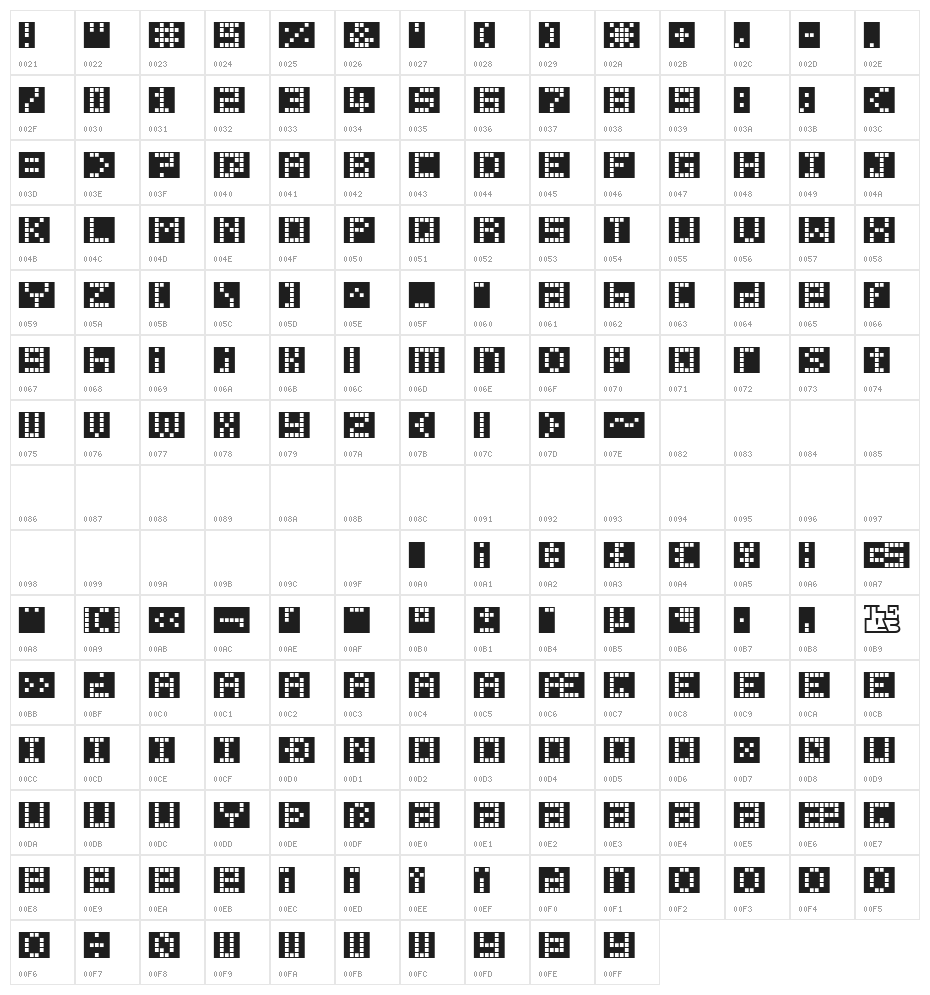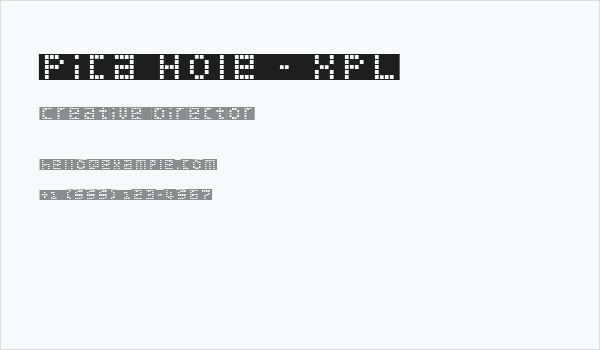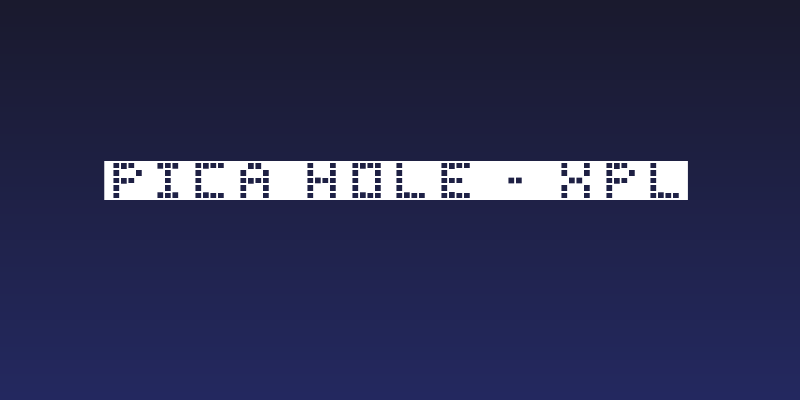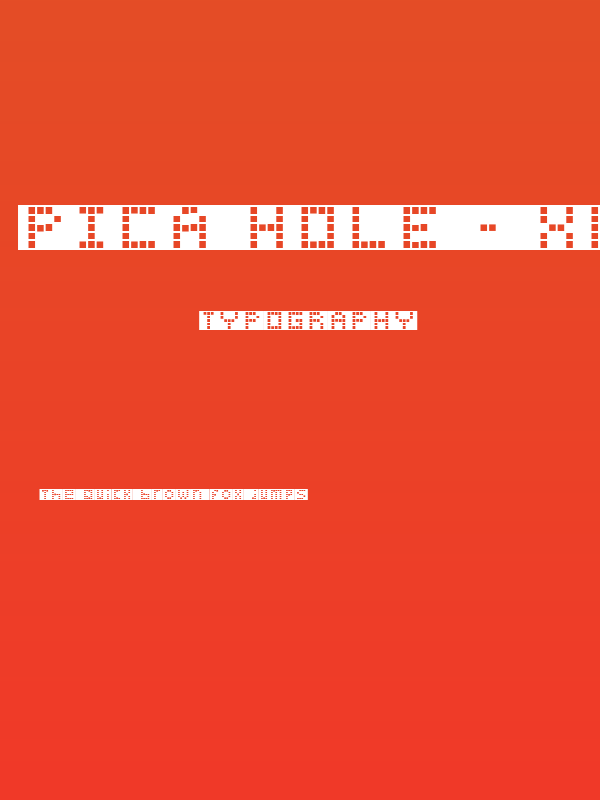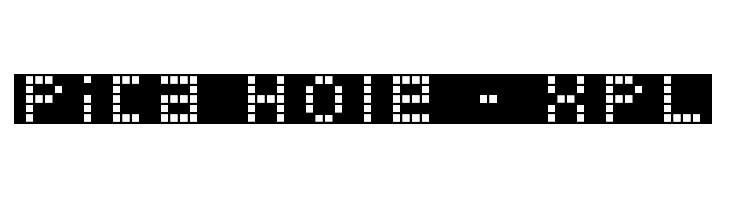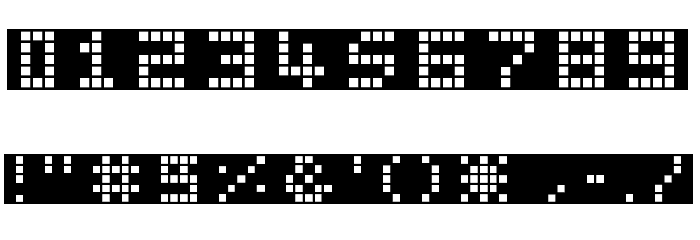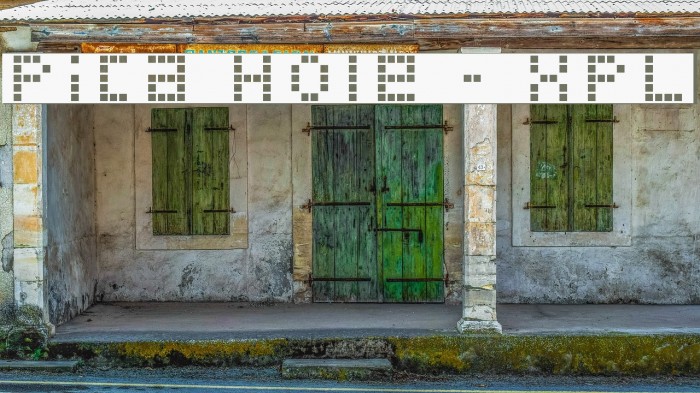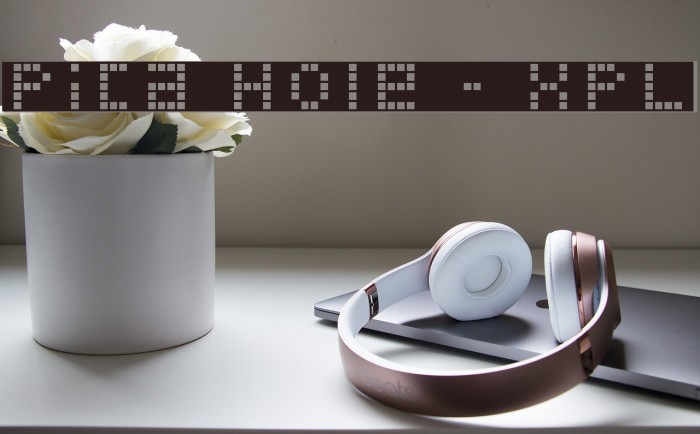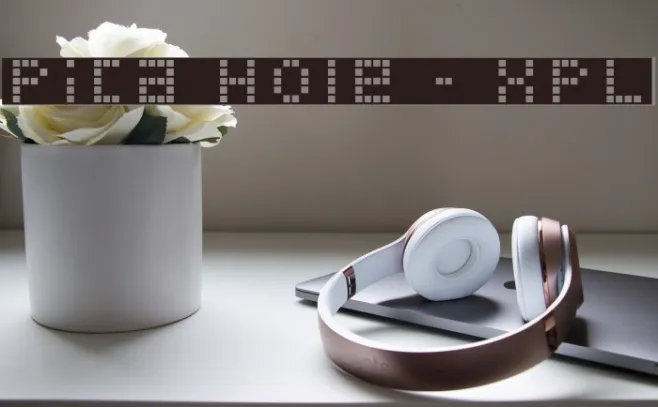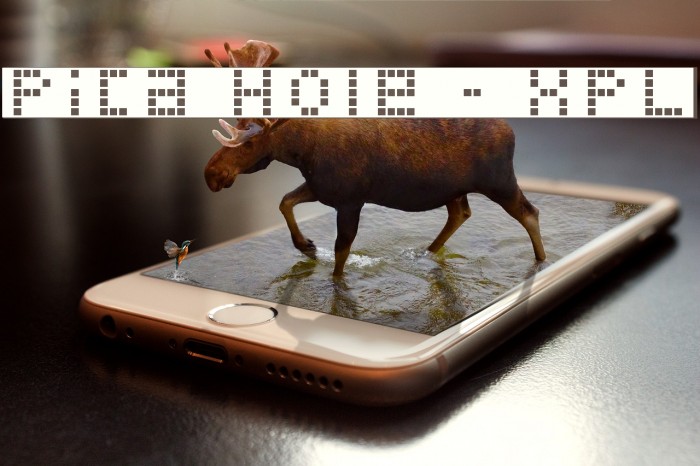
Pica Hole - XPL Font
Pica Hole - XPL Description
This font features a distinct pixelated design, reminiscent of early digital displays and retro gaming aesthetics. Each character is constructed from a grid of small squares, creating a blocky and geometric appearance. The uniformity in the grid structure gives it a monospaced feel, although the characters themselves are not strictly monospaced. The uppercase and lowercase letters maintain a consistent style, with the lowercase being slightly smaller in height. Numbers and special characters follow the same pixelated pattern, ensuring a cohesive look across all glyphs. This font's unique style makes it stand out, particularly in digital or retro-themed projects.
| Overall Style | Retro, Digital |
| Use Case | Logos, Posters, Digital Art |
| Proposed Projects | Ideal for retro video games, digital art projects, tech-themed posters, and any design requiring a vintage digital aesthetic. |